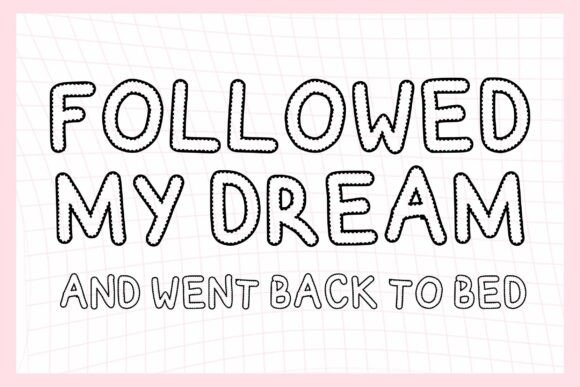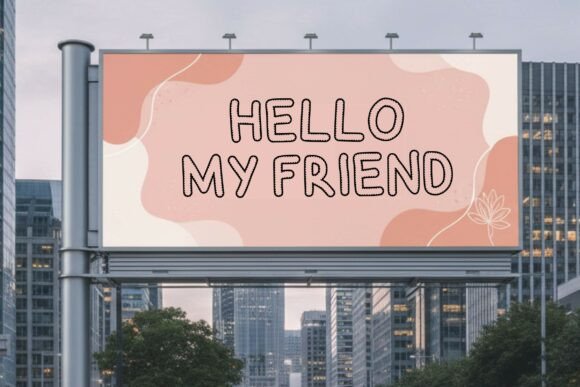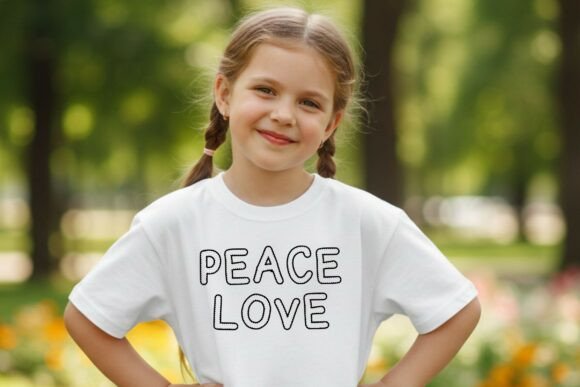
Introduction to Outline Papper Font
Outline Papper is a playful, hand-drawn outline font featuring bold rounded letterforms with a stitched or dotted inner detail.
Its soft, bubbly shapes and whimsical style make it perfect for fun, creative designs such as posters, children’s materials, branding, and social media graphics .